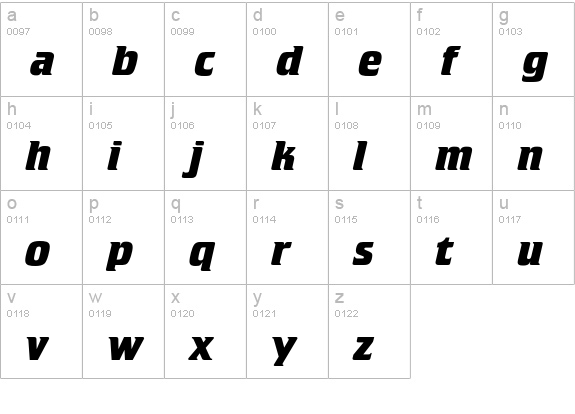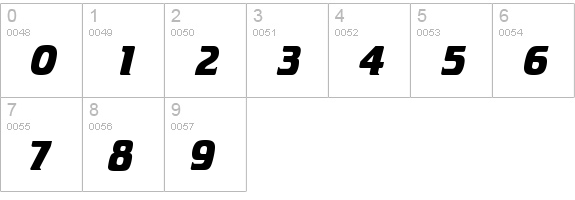
ATCrillee-BoldItalic Font Details
ATCrillee-BoldItalic font is a striking and bold typeface that exudes elegance and sophistication. Its italicized style adds a touch of flair and creativity to any design project. The strong and commanding presence of this font makes it perfect for headers, titles, and any text that needs to make a statement. What sets ATCrillee-BoldItalic font apart is that it is available for free download at FontsMarket.com. This means that you can easily access and use this stunning font in your projects without any cost. Whether you're working on a print design, digital project, or anything in between, ATCrillee-BoldItalic font is sure to elevate your work with its unique and eye-catching aesthetic. Don't miss out on the opportunity to enhance your designs with the bold and italicized beauty of ATCrillee-BoldItalic font. Download it for free today and see the impact it can make on your creative endeavors.